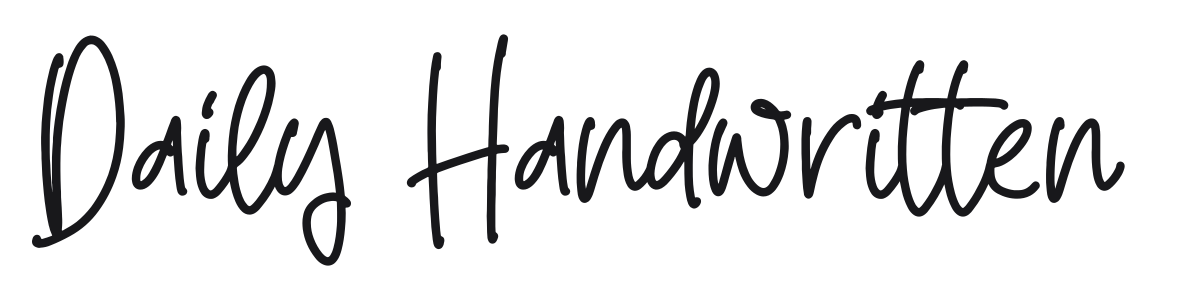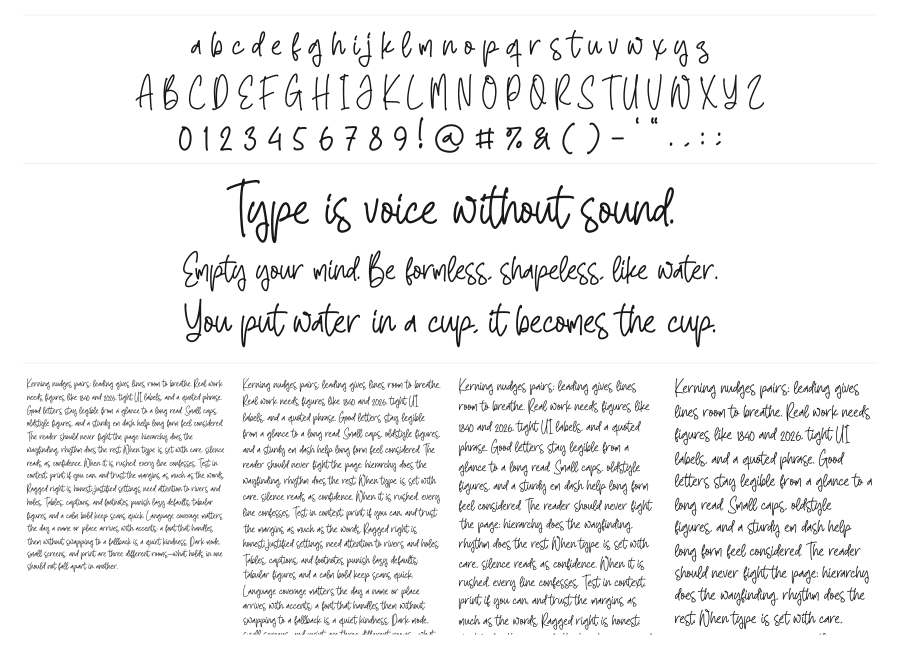
Daily Handwritten
Daily Handwritten is a casual cursive script that looks like it was written quickly with a fine pen. The flowing connected strokes and subtle baseline irregularity give it an authentic, personal quality without feeling sloppy. It works well wherever a human touch is needed: product labels, greeting cards, social media graphics.